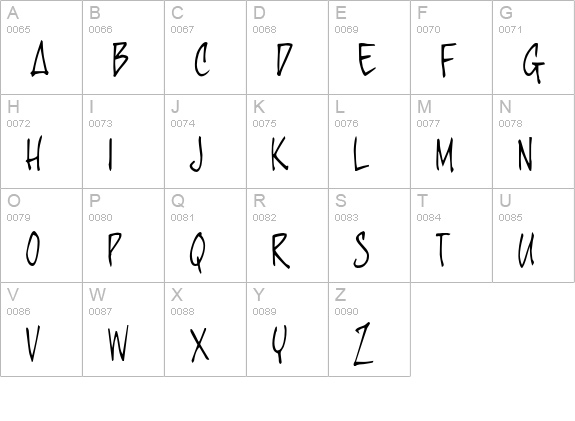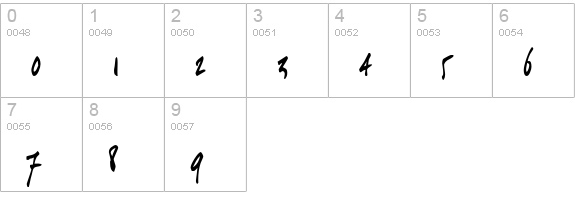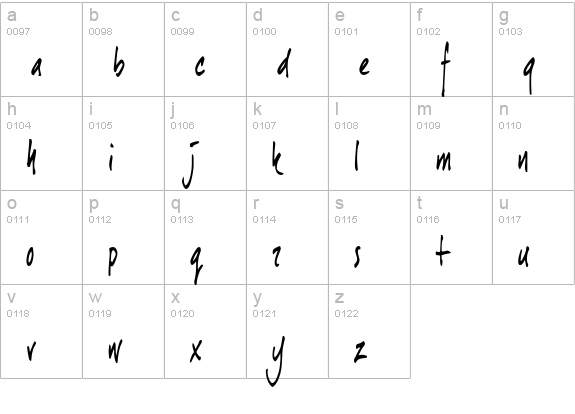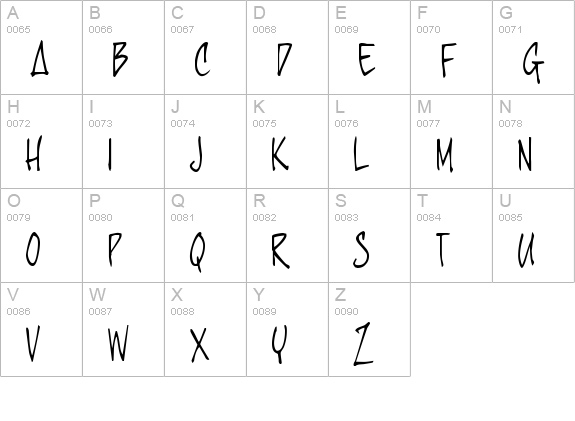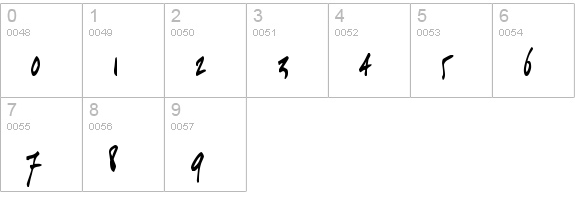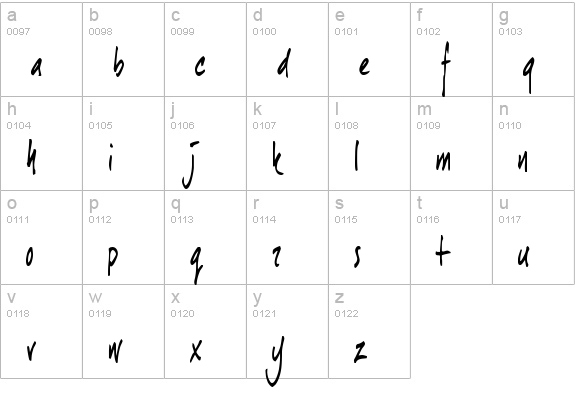
joeHand 1 Font Details
JoeHand 1 font is a charming and versatile typeface that exudes a sense of warmth and friendliness. With its hand-drawn appearance and unique character shapes, this font is perfect for adding a personal touch to your designs. Whether you're creating invitations, posters, or branding materials, JoeHand 1 font will make your text stand out and leave a lasting impression. The best part? JoeHand 1 font is available for free download at FontsMarket.com. This means you can easily access this delightful font and use it in your projects without any cost. Don't miss out on the opportunity to enhance your designs with the whimsical beauty of JoeHand 1 font. Download it today and let your creativity shine!